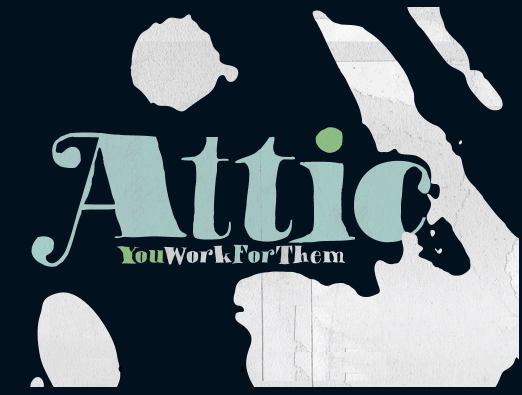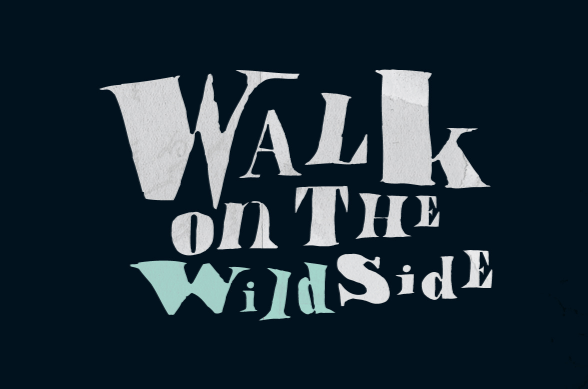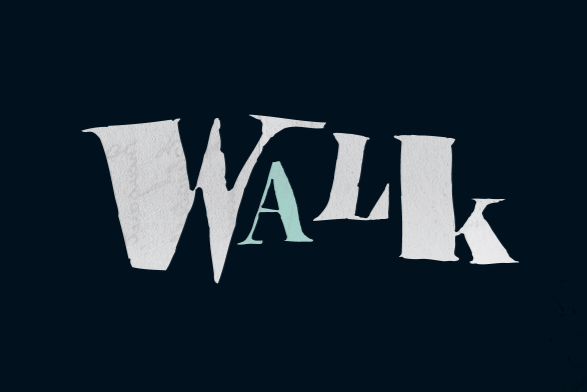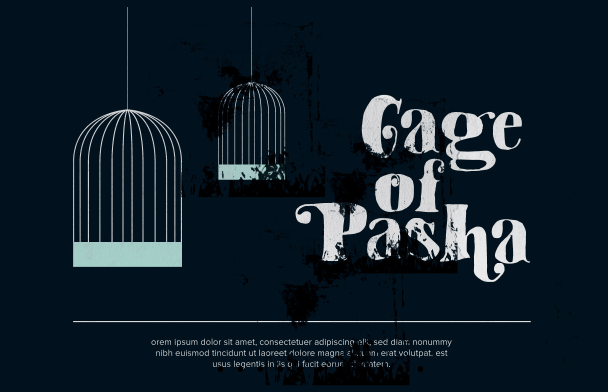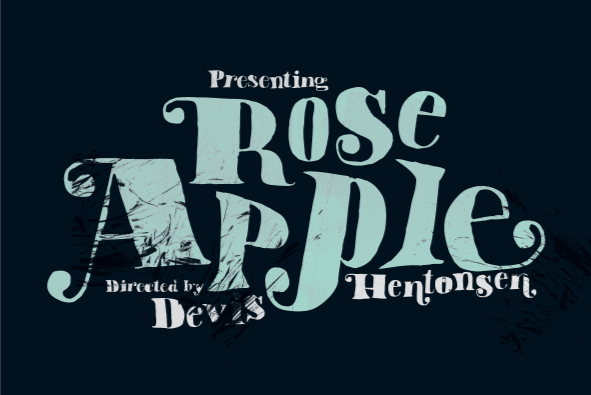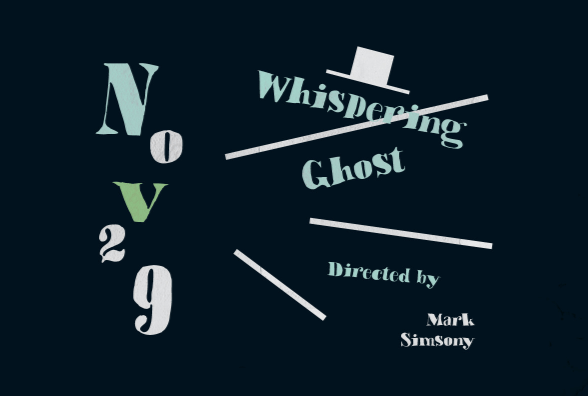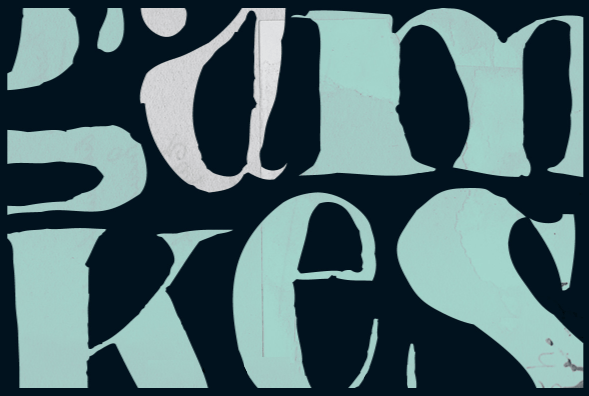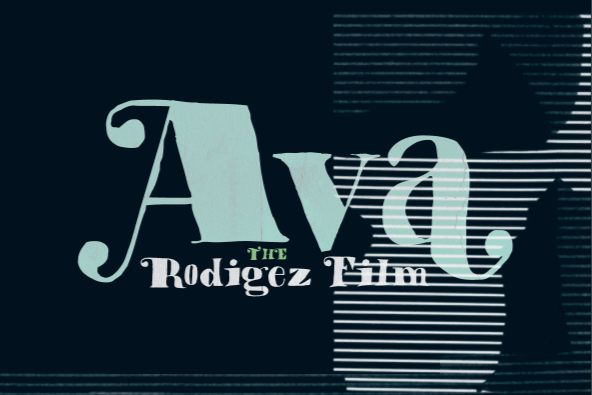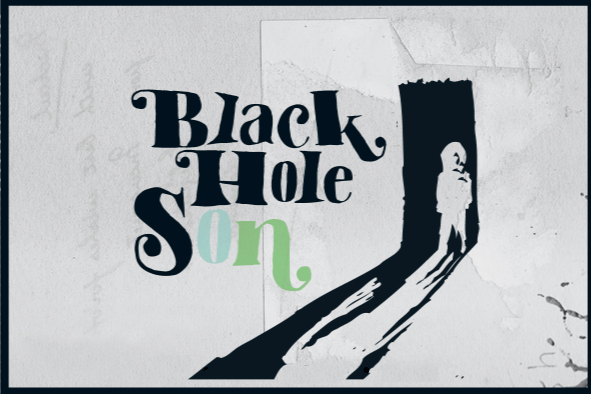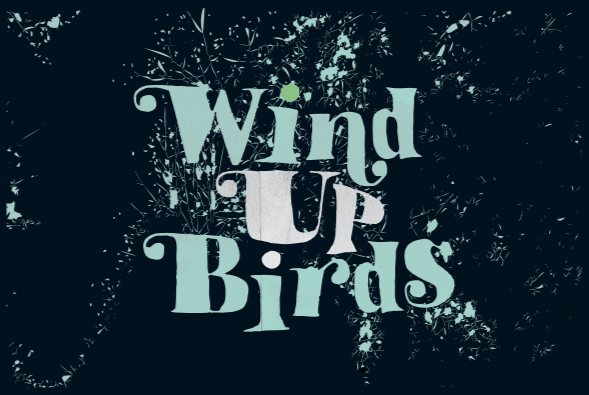
YWFT Attic
Font Family by YouWorkForThem
This is about a journey, from humble EPS handset to magical OpenType glory that might even be a bit spooky if it wasn't so darn majestic. This stately YWFT Attic is full of surprises, with gorgeous stylistic alternates and swash features that even Scooby Doo might leap into your arms over, if it wasn't for you meddling kids. Make no mistake, though, there's no Ruh Ro here--in fact there's glyphs in that thar Attic--over 350 of them, each one hand-carved by YouWorkForThem and the artisan Brazilian type ninjas at PintassilgoPrints, known for their vigorous crafting of magical OpenType features.
Tough, demanding and theatrical, yet delicate enough for the most slender chanteuses to catch the Phantom's eye, YWFT Attic packs all of the emotional power of OpenType, with strong, historical handset roots. Sing, my angels. Sing for the Attic.